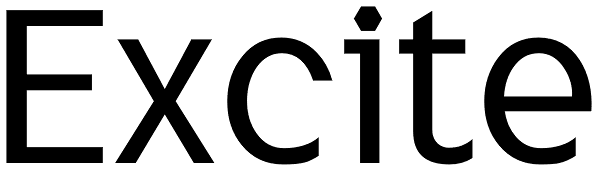
Excite
Excite is a neo-grotesque typeface named after an x-height that’s as tall as you can get without compromising the distinction between upper and lower case, helping to make it extremely readable both in print and on screen. It is modern and spacious...